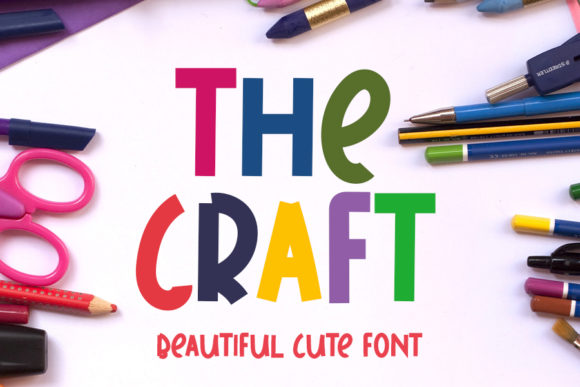
The Craft Font: Elevate Your Designs with Elegance and Quirkiness
In the world of typography, fonts play a crucial role in conveying the tone and personality of a brand or project. When it comes to creating a unique and captivating visual identity, selecting the right font is essential. This is where “The Craft” font comes into play – a magical display font that combines elegance, cleanliness, and a touch of quirkiness. In this article, we’ll dive into the features and benefits of “The Craft” font, and explore how it can be the perfect fit for your logos, branding, social media, and crafty DIY projects.
What Makes The Craft Font Stand Out?
“The Craft” font is carefully crafted to provide a distinctive and eye-catching appearance. Its clean lines and elegant curves make it an excellent choice for designs that require a touch of sophistication. At the same time, its quirky elements add a playful and creative twist, making it perfect for projects that need a bit of personality.
- Elegant and Clean Design: The font features smooth lines and curves, providing a refined and polished look.
- Quirky Elements: Unique design elements add a touch of playfulness and creativity to the font.
- Versatile: Suitable for a wide range of projects, from logos and branding to social media and DIY crafts.
Perfect for Logos and Branding
When it comes to creating a strong brand identity, the font used in your logo plays a vital role. “The Craft” font is designed to help you create a memorable and impactful logo that reflects your brand’s personality. Its elegant and quirky design makes it an excellent choice for:
- Logos: Create a unique and captivating logo that stands out from the competition.
- Branding: Use “The Craft” font across your branding materials to create a consistent and recognizable visual identity.
- Business Cards: Add a touch of elegance and professionalism to your business cards with this versatile font.
Perfect for Crafty DIY Projects
If you’re a crafty DIY enthusiast, you’ll love “The Craft” font. Its quirky and elegant design makes it perfect for a wide range of DIY projects, including:
- Crafting Tutorials: Add a touch of personality to your crafting tutorials with this unique font.
- DIY Blog Posts: Use “The Craft” font to create engaging and visually appealing blog posts that showcase your DIY projects.
- Handmade Products: Add a personal touch to your handmade products with custom labels and packaging featuring “The Craft” font.
Typography Tips: Getting the Most Out of The Craft Font
To get the most out of “The Craft” font, here are some typography tips to keep in mind:
- Experiment with Font Sizes: Play around with different font sizes to create visual interest and hierarchy in your designs.
- Pair with Other Fonts: Combine “The Craft” font with other fonts to create a unique and visually appealing typography scheme.
- Pay Attention to Kerning: Make sure to adjust the kerning to ensure that the font looks balanced and visually appealing.
“The Craft” font is a versatile and eye-catching display font that can elevate your designs and help you create a unique visual identity. Its elegant and quirky design makes it perfect for a wide range of projects, from logos and branding to social media and DIY crafts. With its clean lines, elegant curves, and playful elements, “The Craft” font is sure to become a favorite in your typography arsenal.